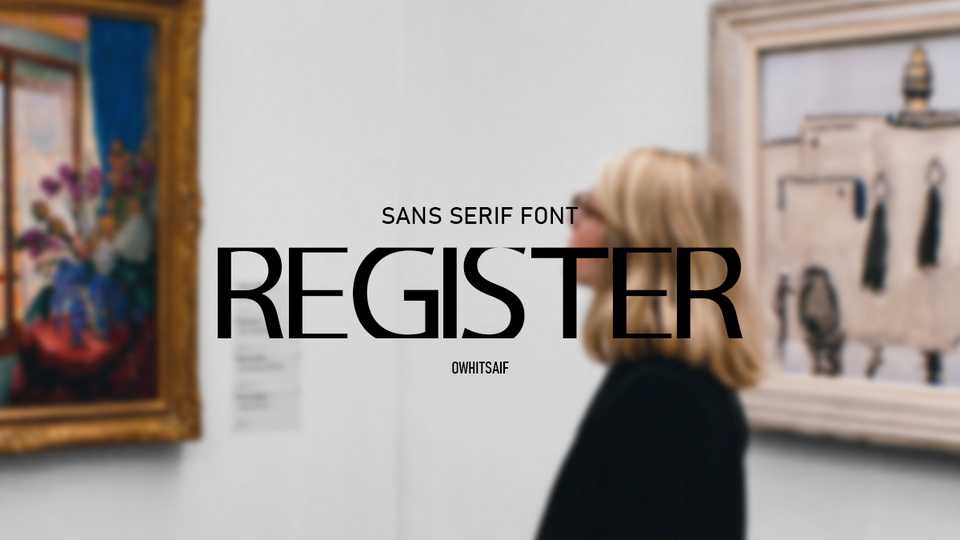
Download Register font, a minimalist and modern sans serif typeface. Register is perfect for creating beautiful logos, eye-catching social media posts, nice fashion banners, and much more.